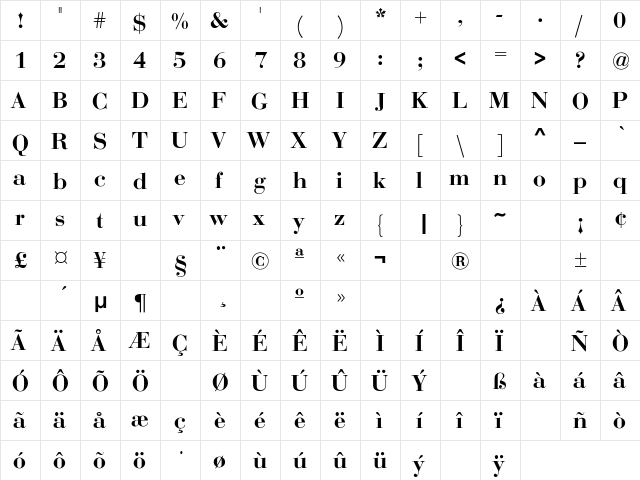
Hensley Regular
Design Context for Hensley Typeface
Hensley is a composed and adaptable typeface that performs quietly and consistently across a wide range of design contexts.
Pro Tip: Pair Hensley with a font of contrasting weight or personality to build a more expressive typographic hierarchy.